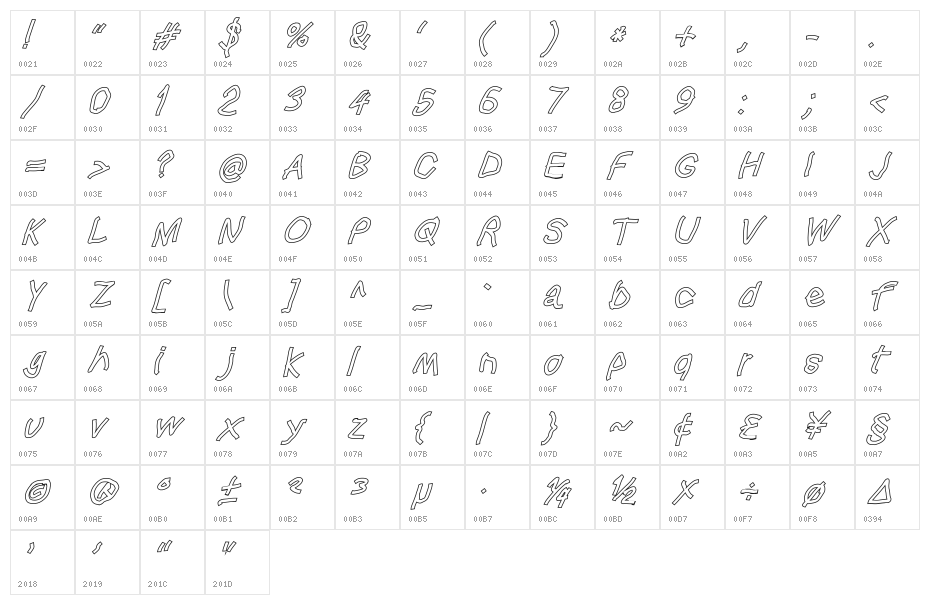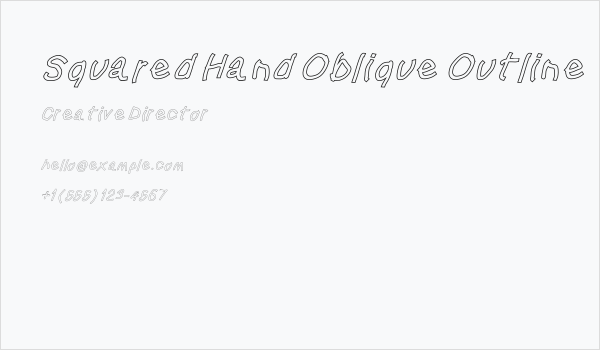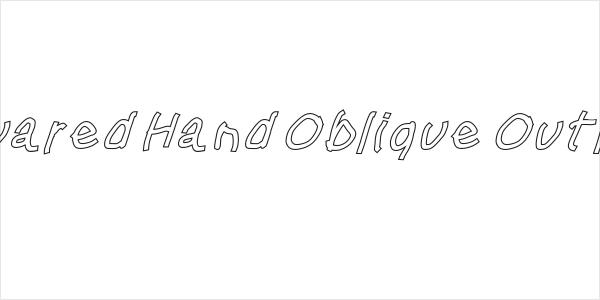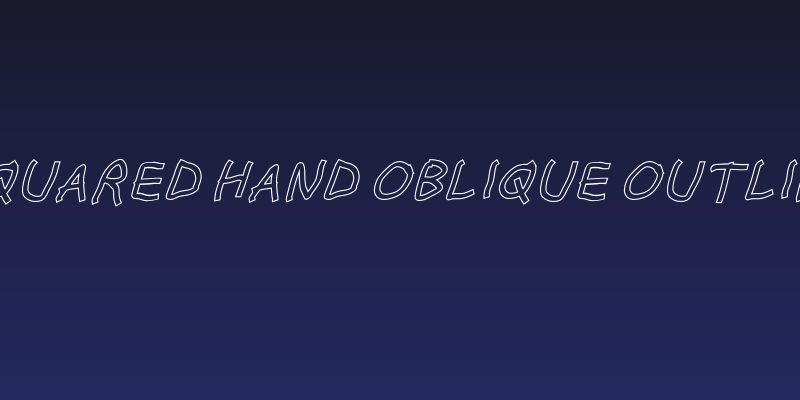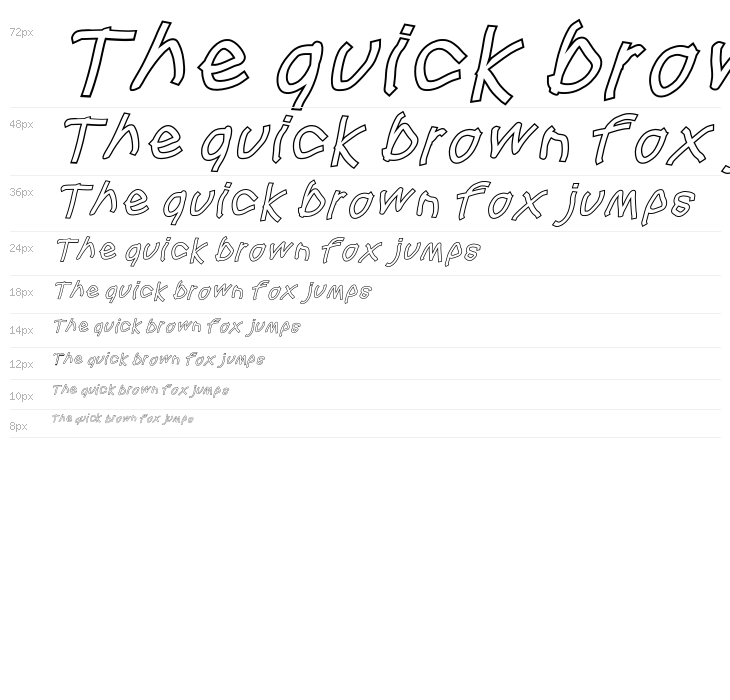
Squared Hand Oblique Outline Font
Squared Hand Oblique Outline Description
This font features a unique oblique outline style, combining a modern aesthetic with a playful touch. The characters are outlined, giving them a hollow appearance that adds depth and dimension. The slanted orientation of the letters suggests movement and dynamism, making it suitable for creative and informal applications. The uppercase and lowercase letters maintain a consistent style, with rounded edges and a slightly irregular form that enhances its casual vibe. The numerals and special characters follow the same design principles, ensuring a cohesive look across all text elements.
| Proposed Projects | Ideal for posters, creative branding, children's books, and playful merchandise. |